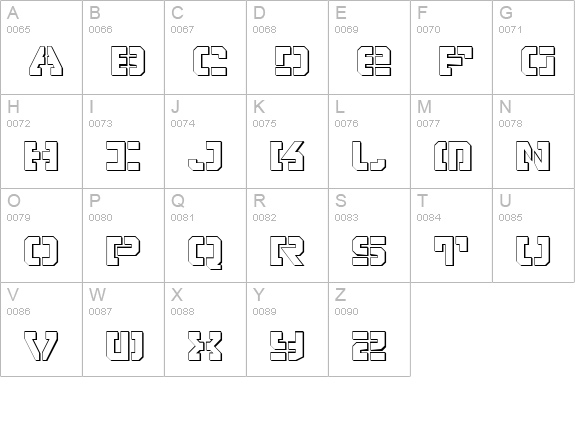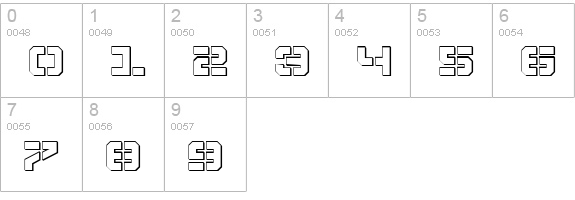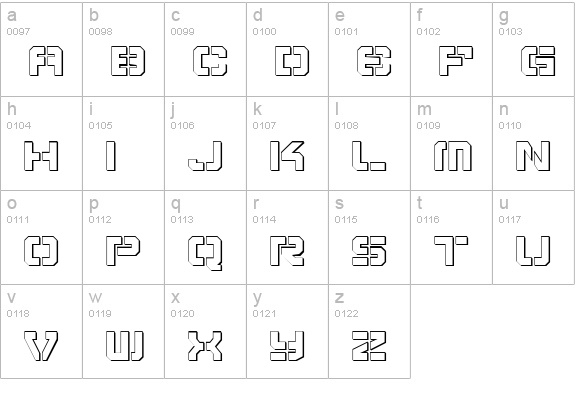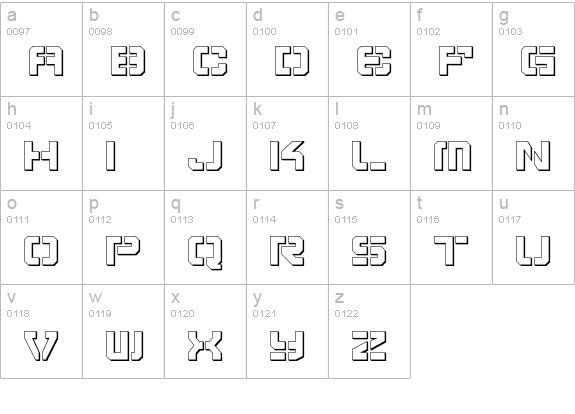
Vyper Shadow font is a stunning display typeface that embodies elegance and sophistication. With its unique and intricate design, this font is perfect for adding a touch of mystery and allure to any project. The sharp, edgy lines of Vyper Shadow make it stand out and capture attention effortlessly. What's even better is that Vyper Shadow is available for free download at FontsMarket.com. Yes, you heard it right - this exquisite font can be yours at no cost at all. So go ahead and elevate your designs with the captivating beauty of Vyper Shadow font.